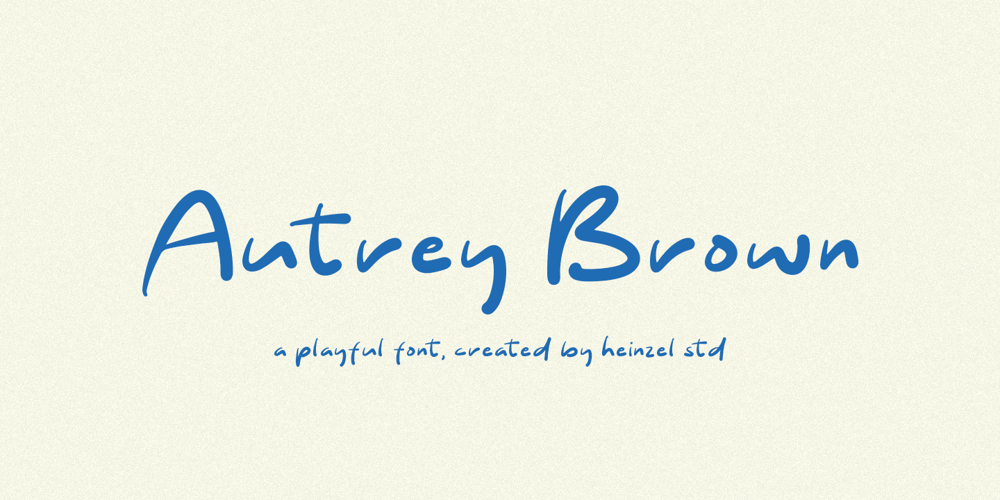
Autrey Brown
Autrey Brown font
Autrey Brown Font Family was designed by Nofi Sofyan Hadi and published by Heinzel Std. Autrey Brown contains 1 styles and family package options. Autrey Brown is a playful and natural handwritten font. This font is perfect for creating logos, watermarks, branding, wedding invitations, quotes, taglines, etc. Let’s make something beautiful project with this.Autrey Brown Features : Uppercase and Lowercase Numerals and Punctuations Ligatures and Alternates Multilingual Support PUA Encoded